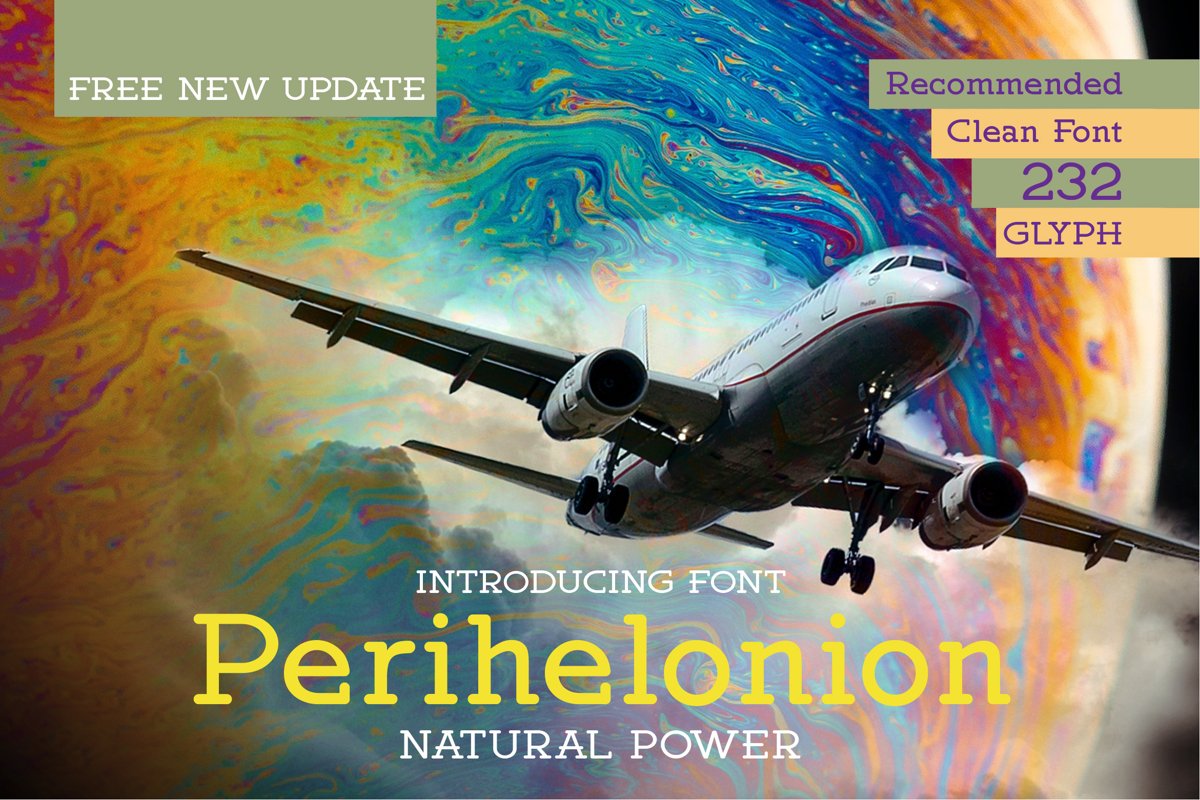
Perihelonion
Perihelonion is a minimal and neat serif font. It can easily be matched to an incredibly large set of projects, so add it to your creative ideas and notice how it makes them stand out!
Perihelonion is smooth, vibrant and strong, with thick rounded serif, ideal for very legible titles. Fun to use and delightfully expressive.